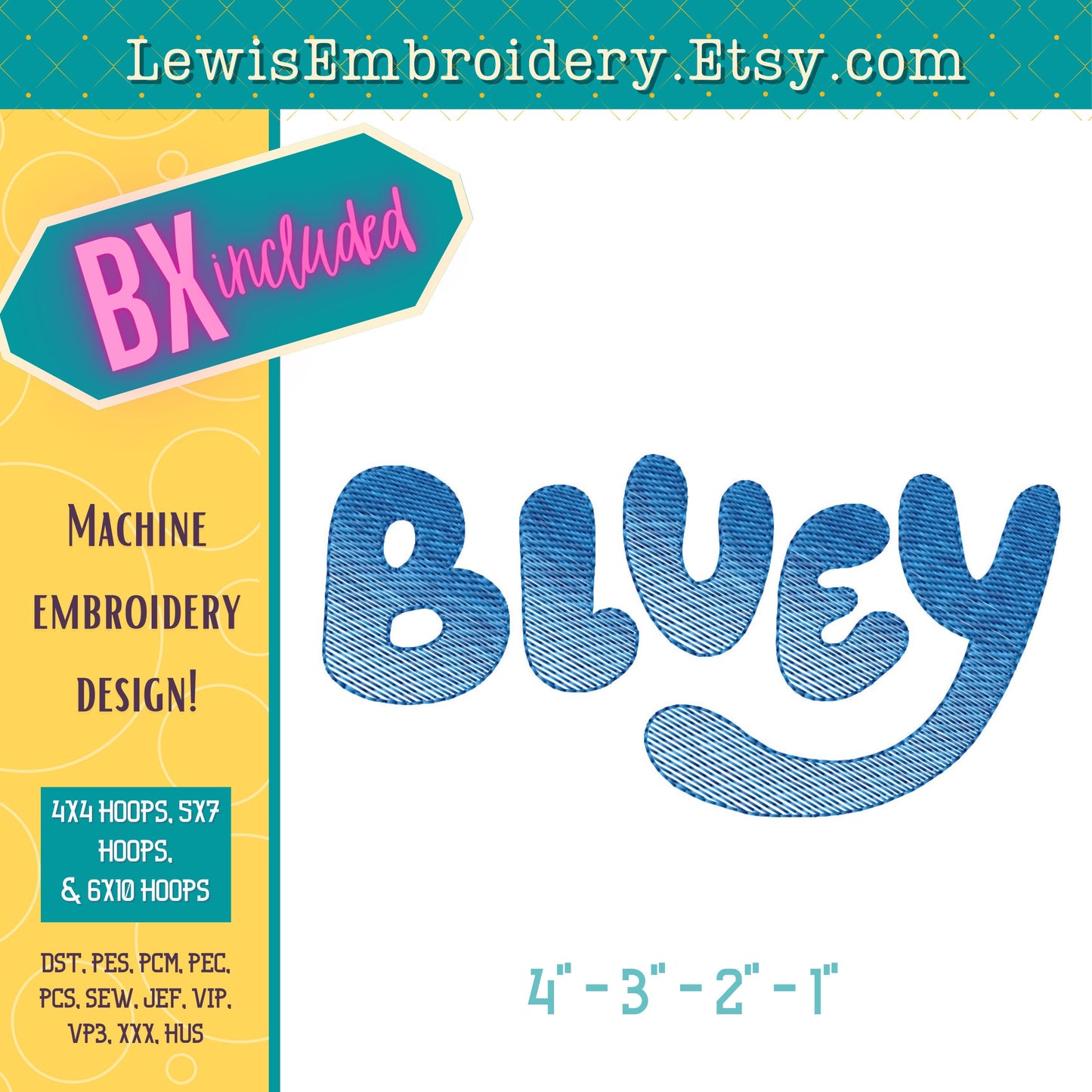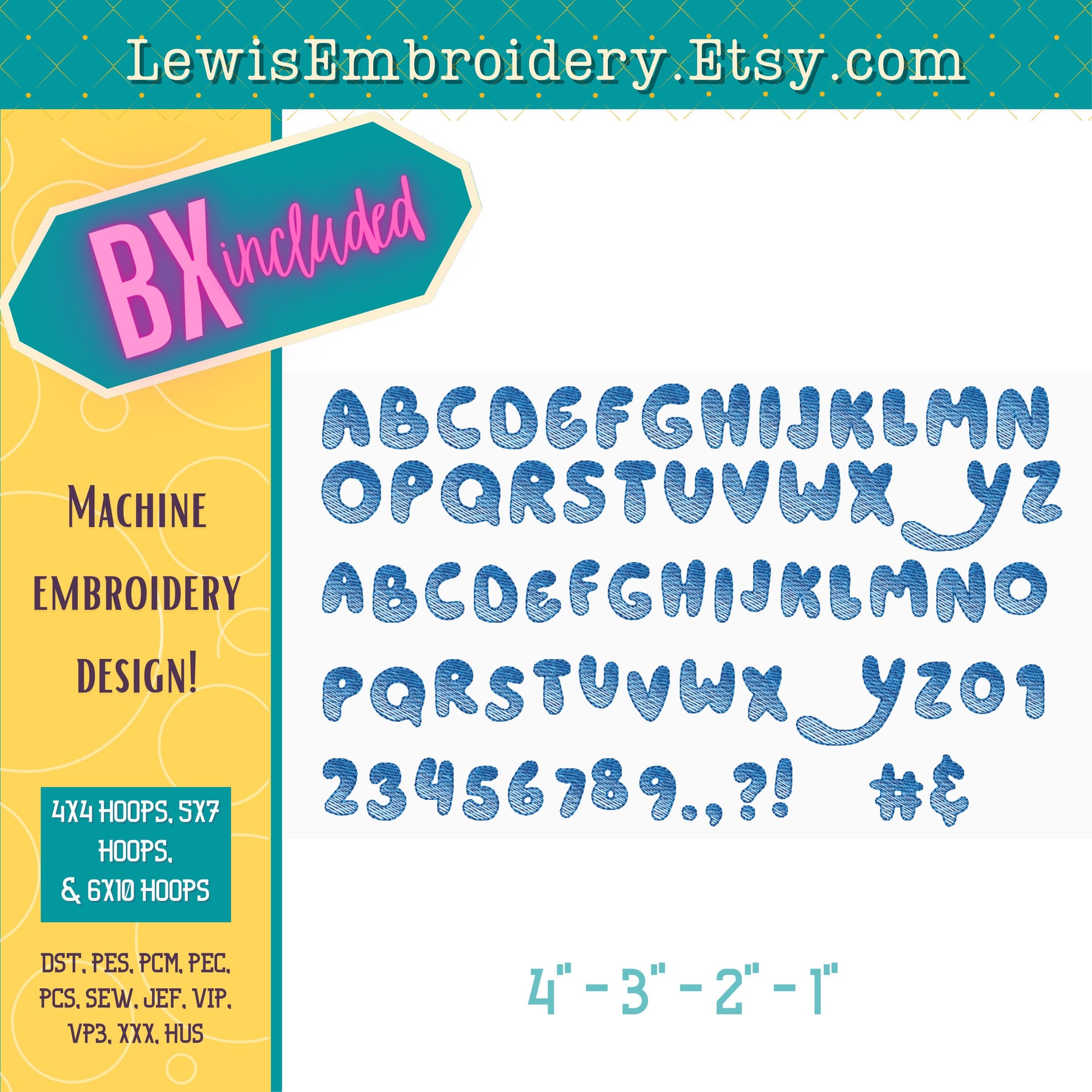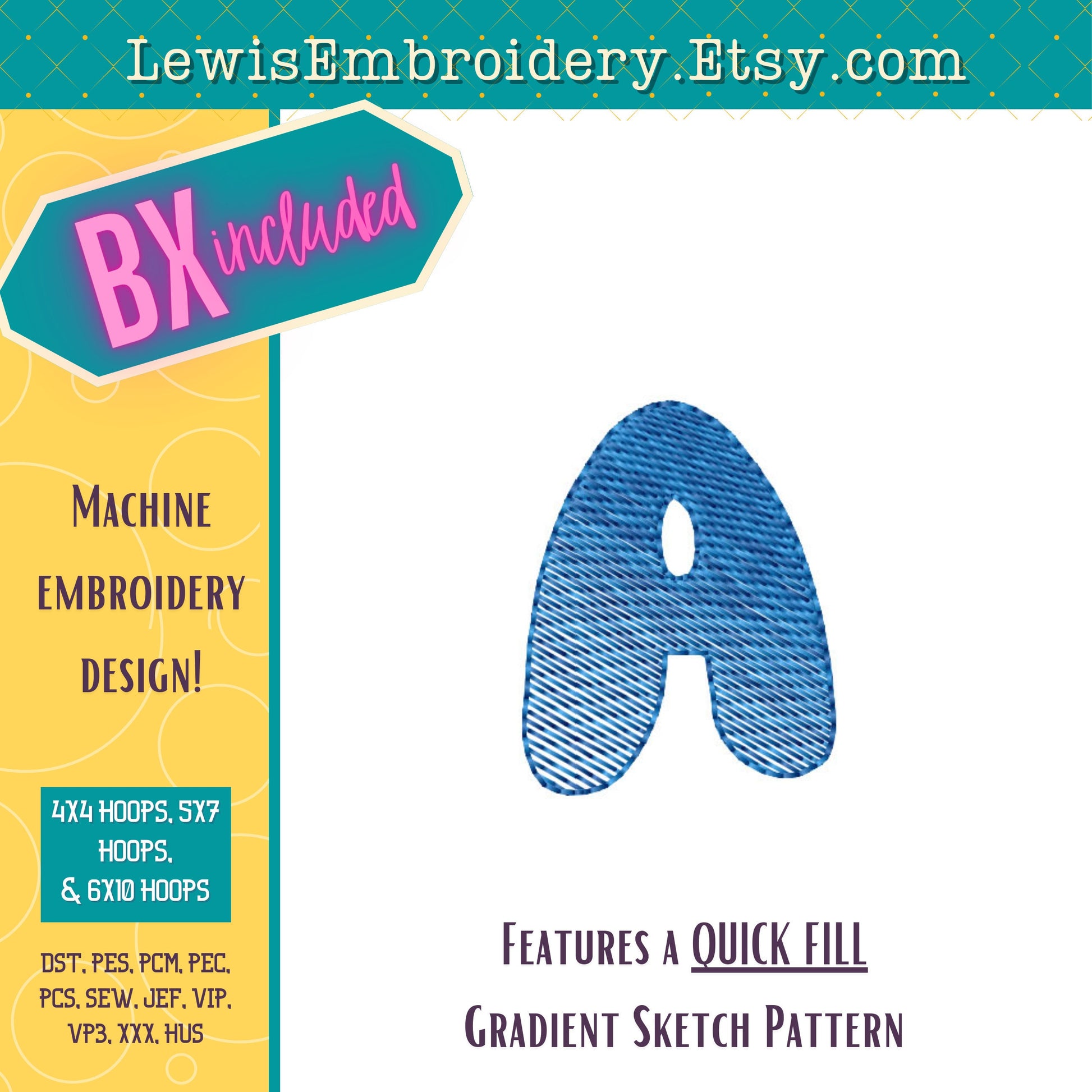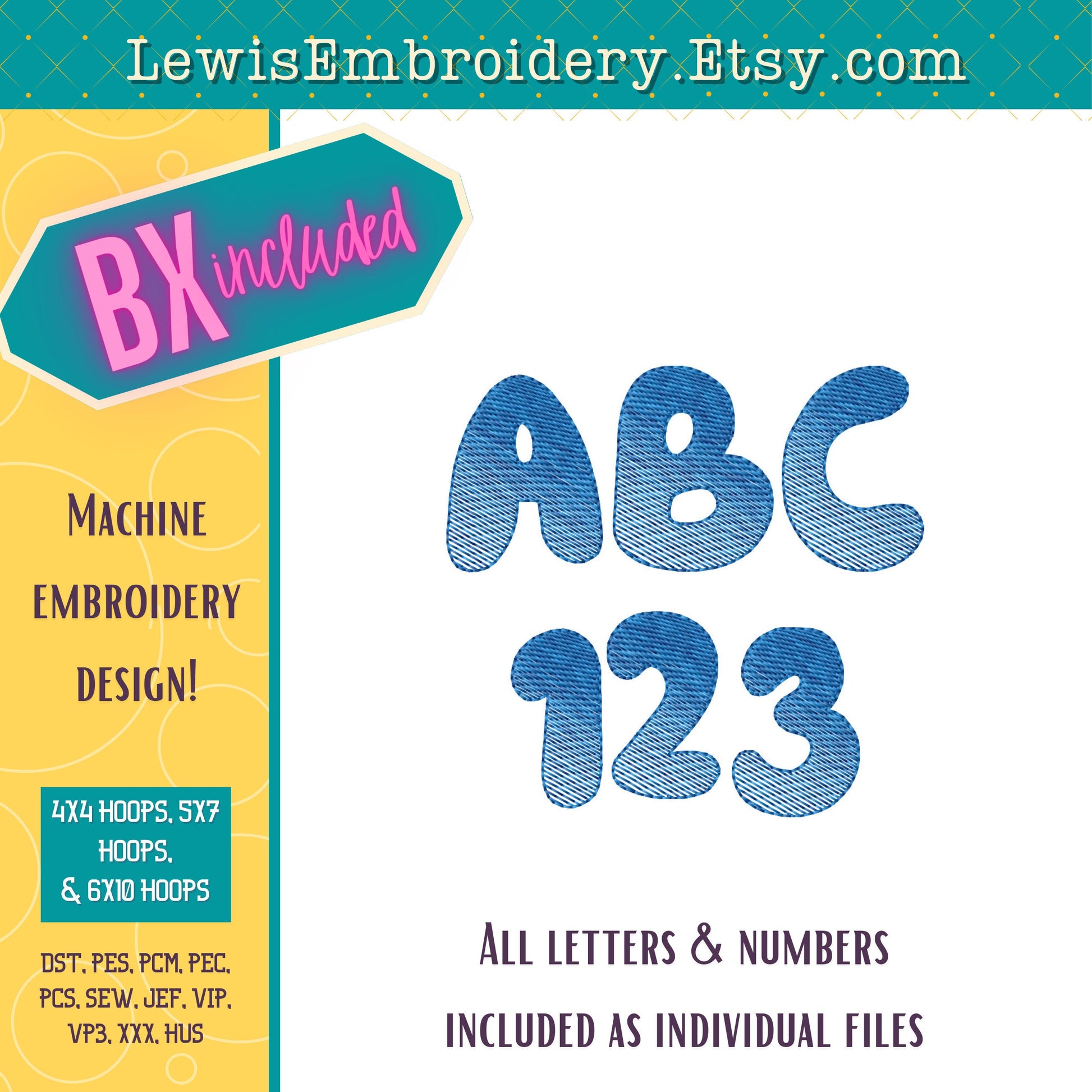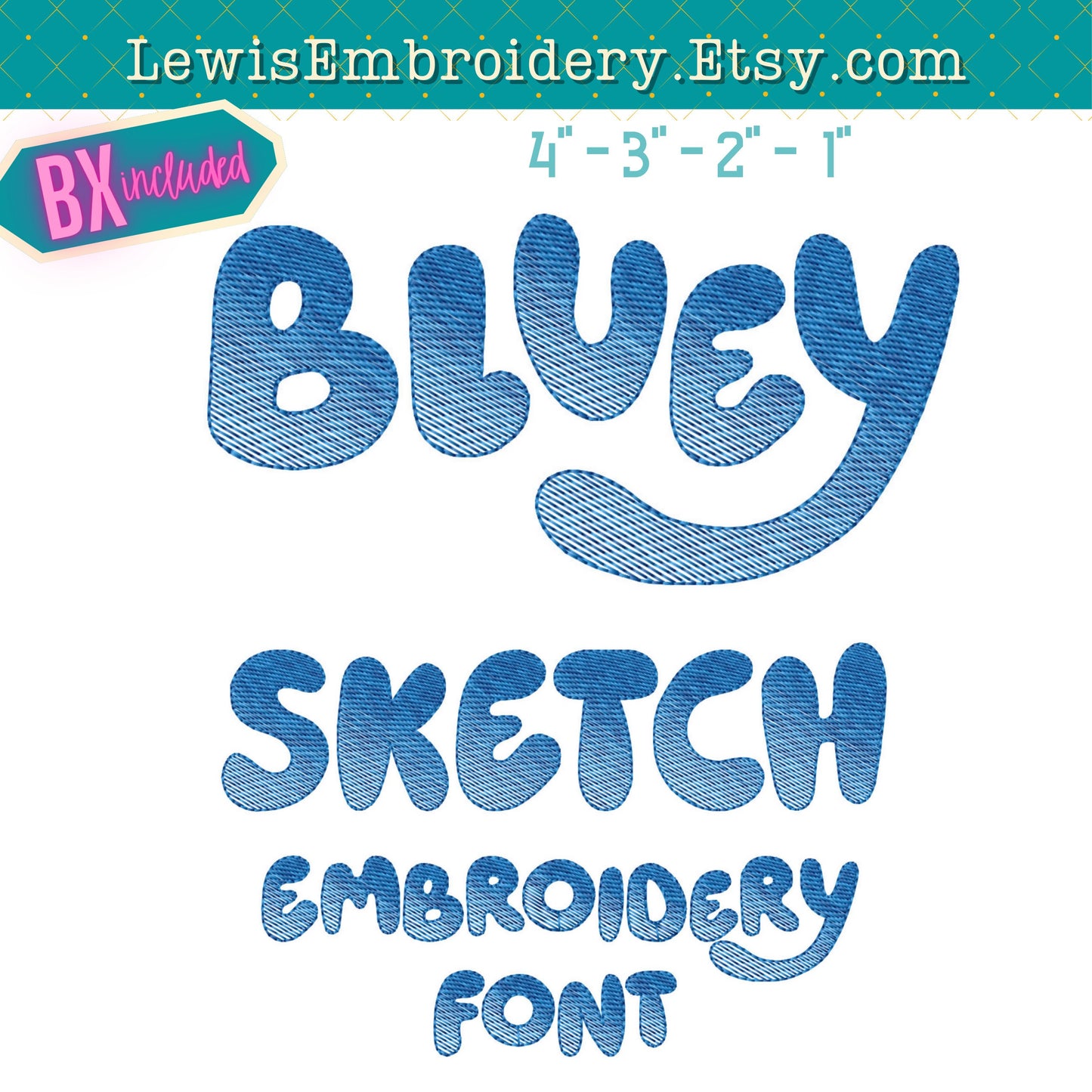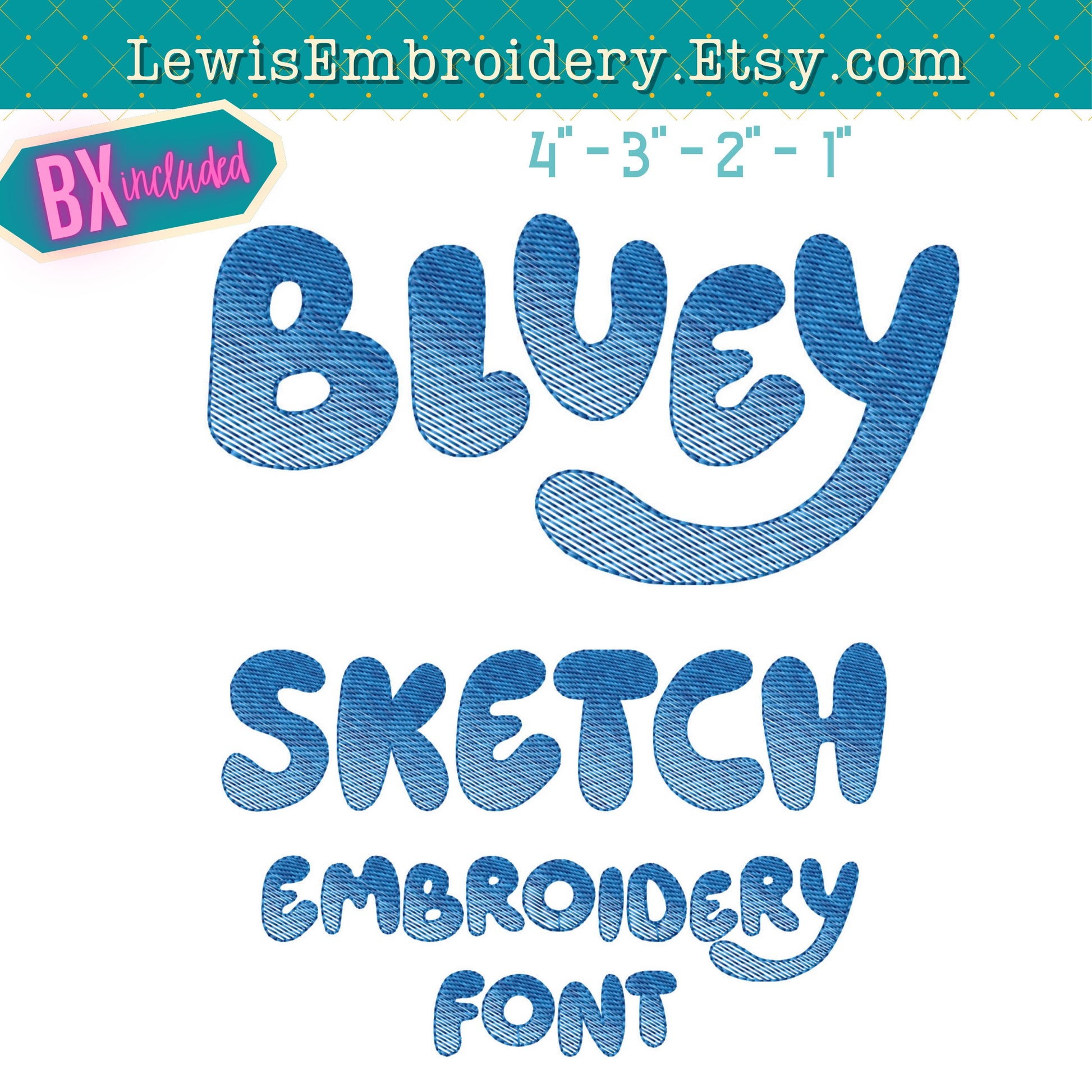
Quick Fill Sketch, Bluey, Machine Embroidery Font – (BX Included)
Bluey Sketch Embroidery Font - Quick Fill Embroidery Font - Gradient Font - Bluey Embroidery - Birthday Font, Cartoon Font, BX